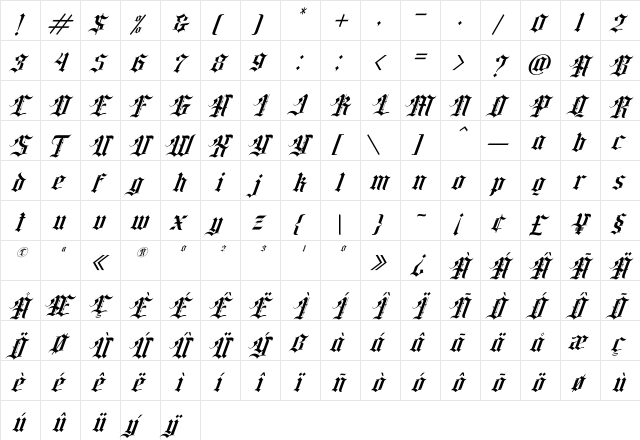
Classic rock band Italic Regular
| Foundry | Kong font |
| Designer | Kong font |
Design Context for Classic rock band Italic Typeface
Classic rock band Italic has the warm character of retro typography — evoking diners, record sleeves, and the golden age of print advertising. Its italic angle brings a sense of urgency and motion to the letterforms.
Font Pairing: Combine Classic rock band Italic with a simple slab or neutral sans — period-accurate companions reinforce the vintage feel without competing for attention.
Pro Tip: Use Classic rock band Italic for headlines and pull quotes rather than body copy — its personality is best appreciated in short, focused bursts.